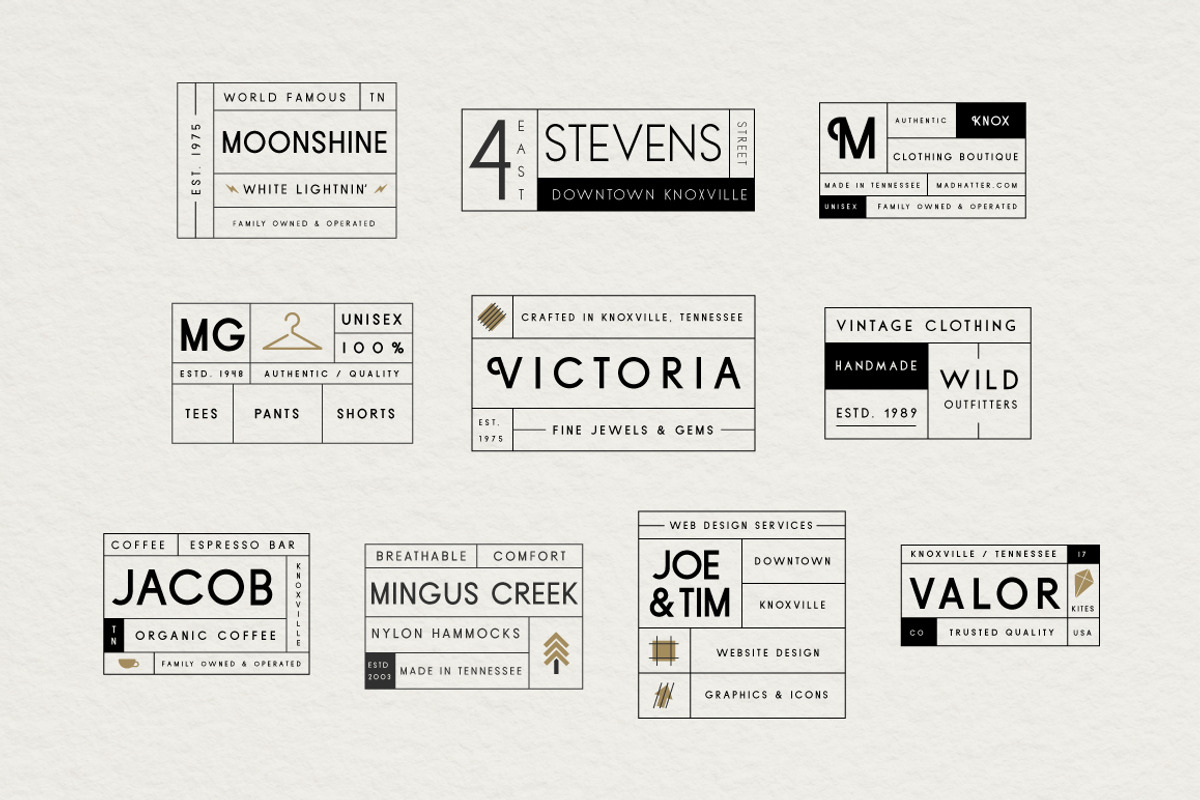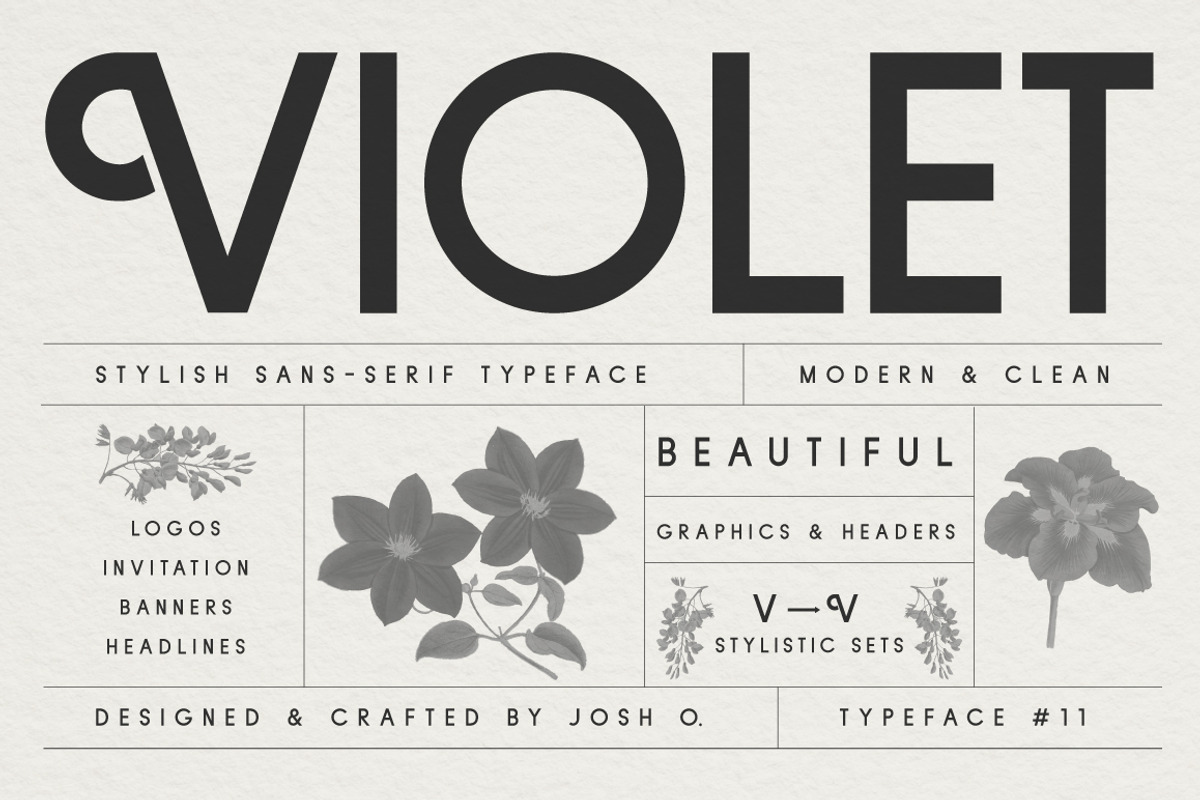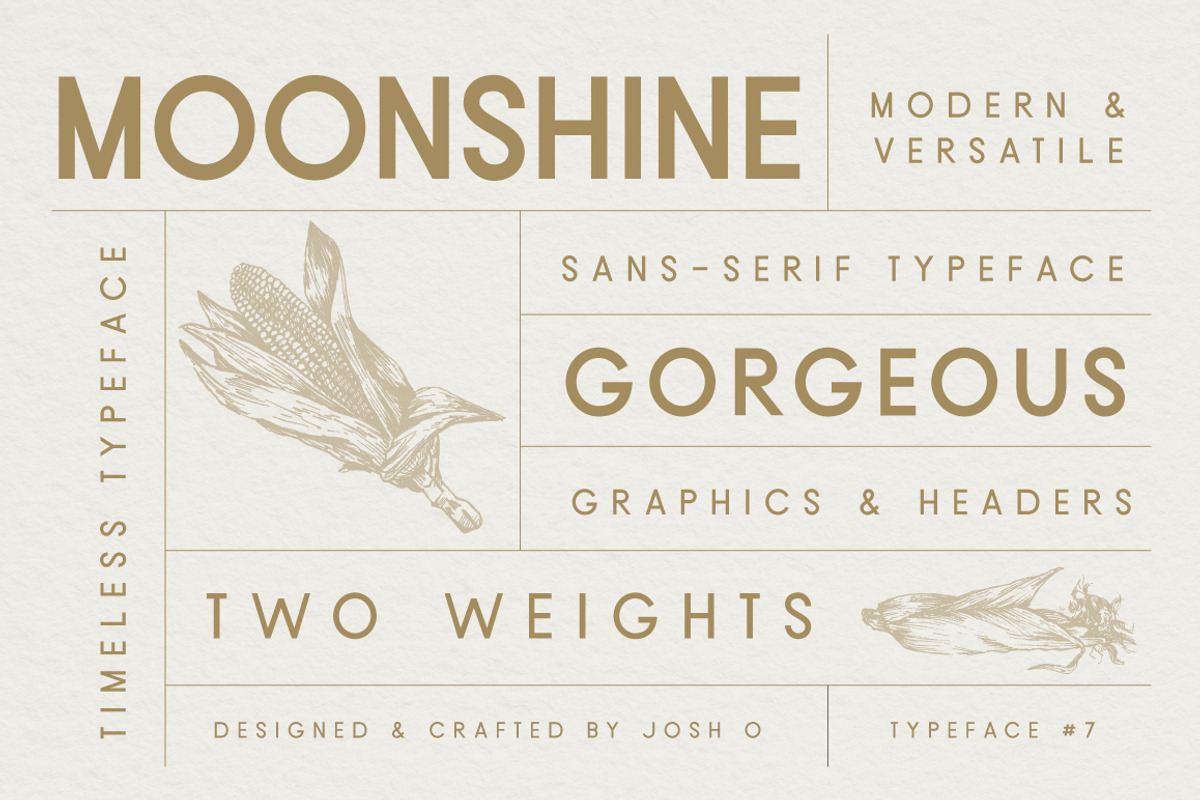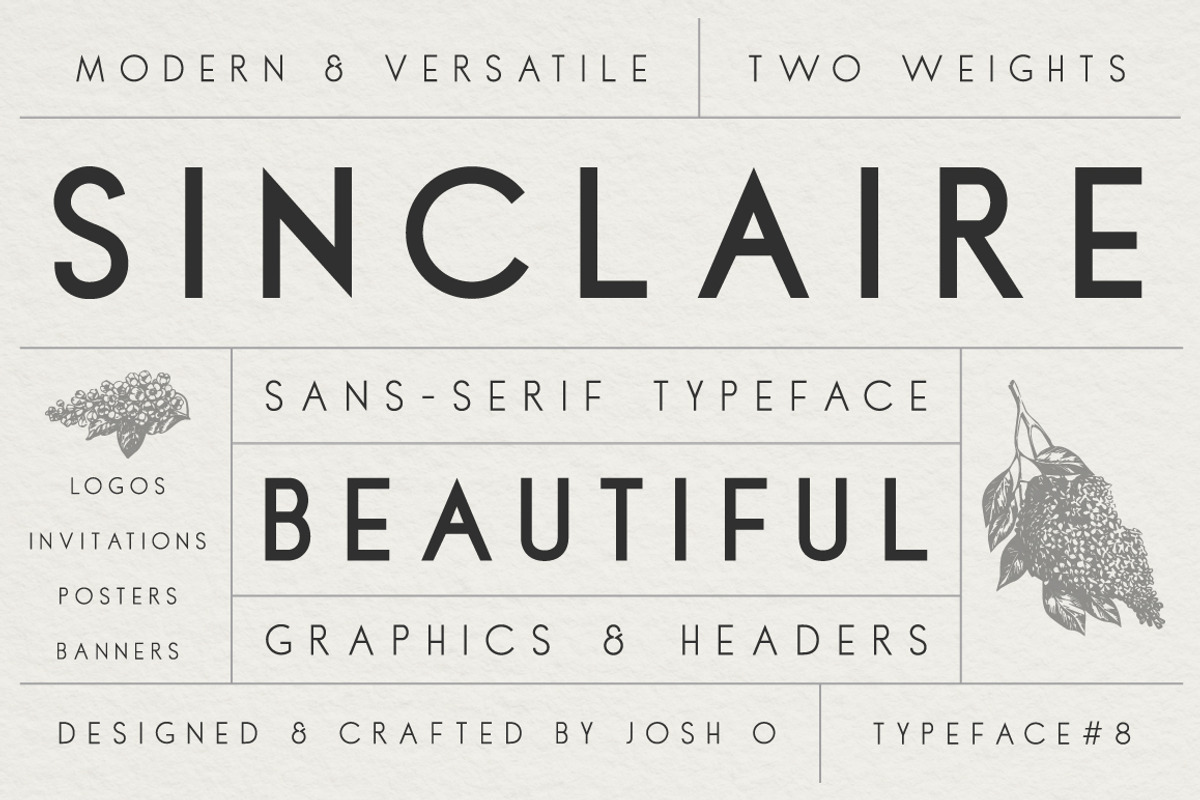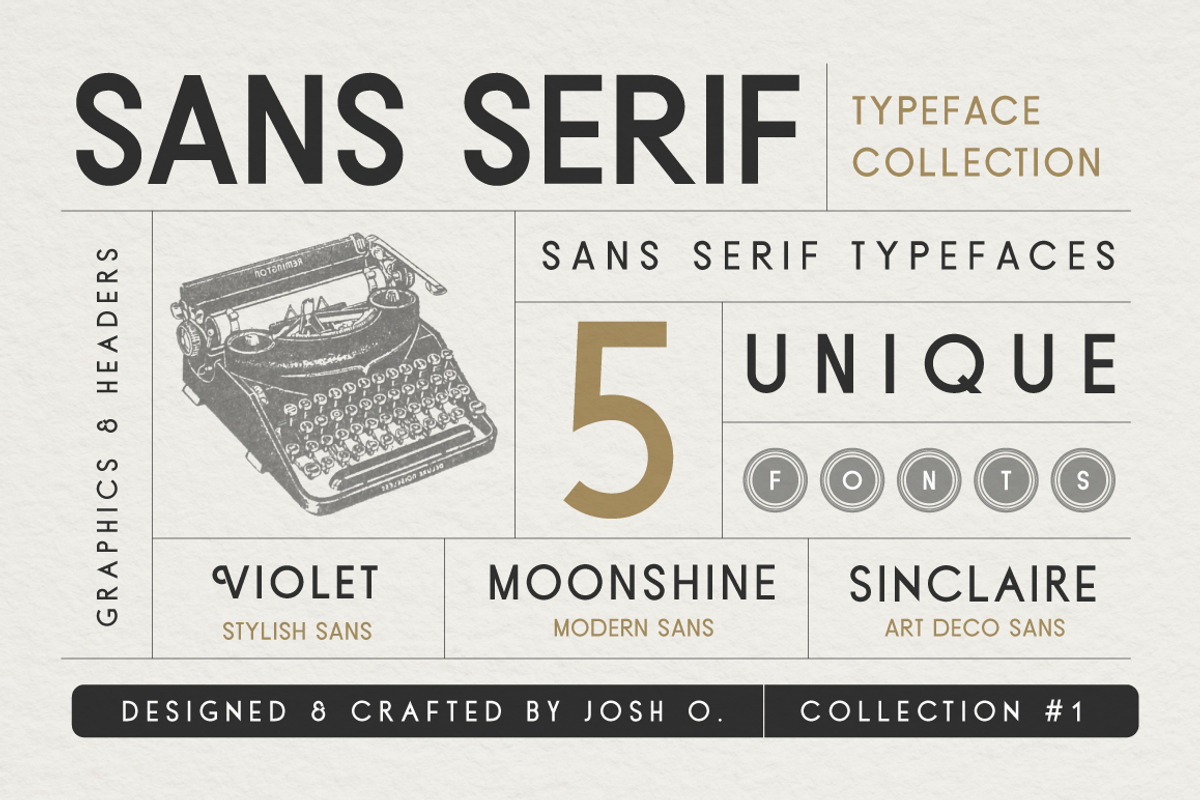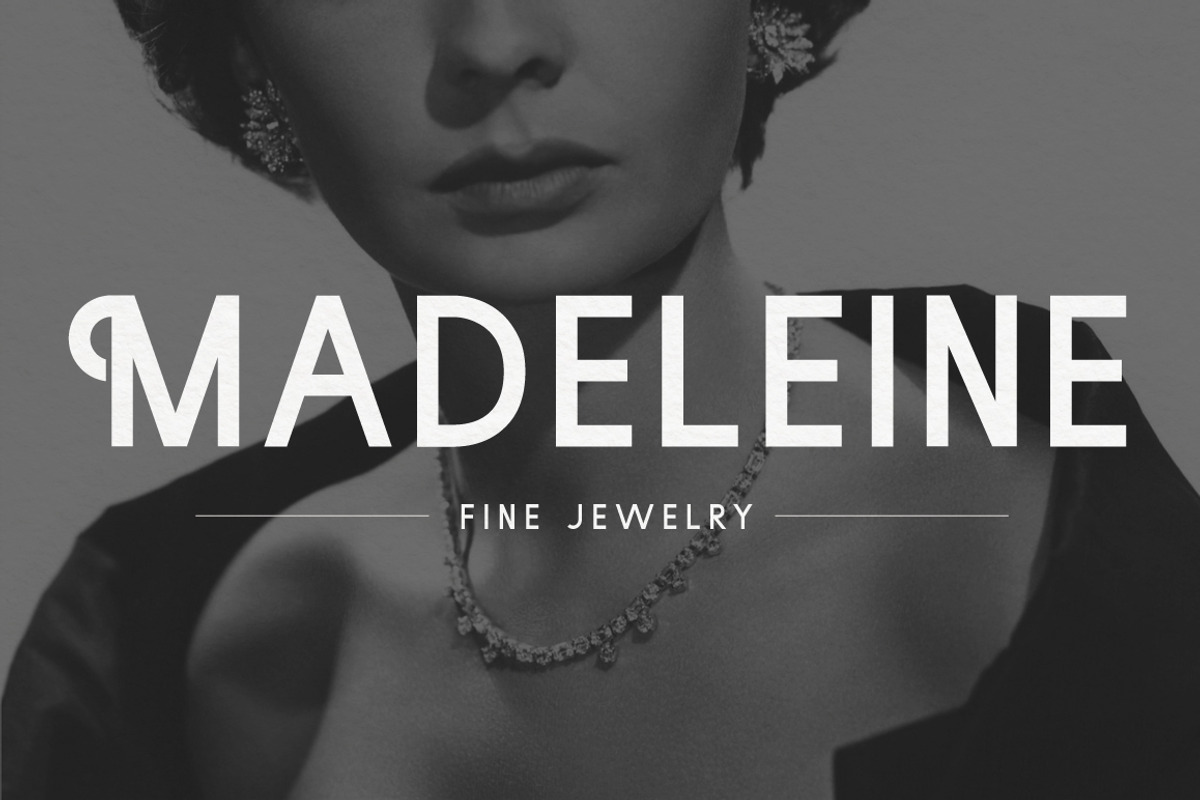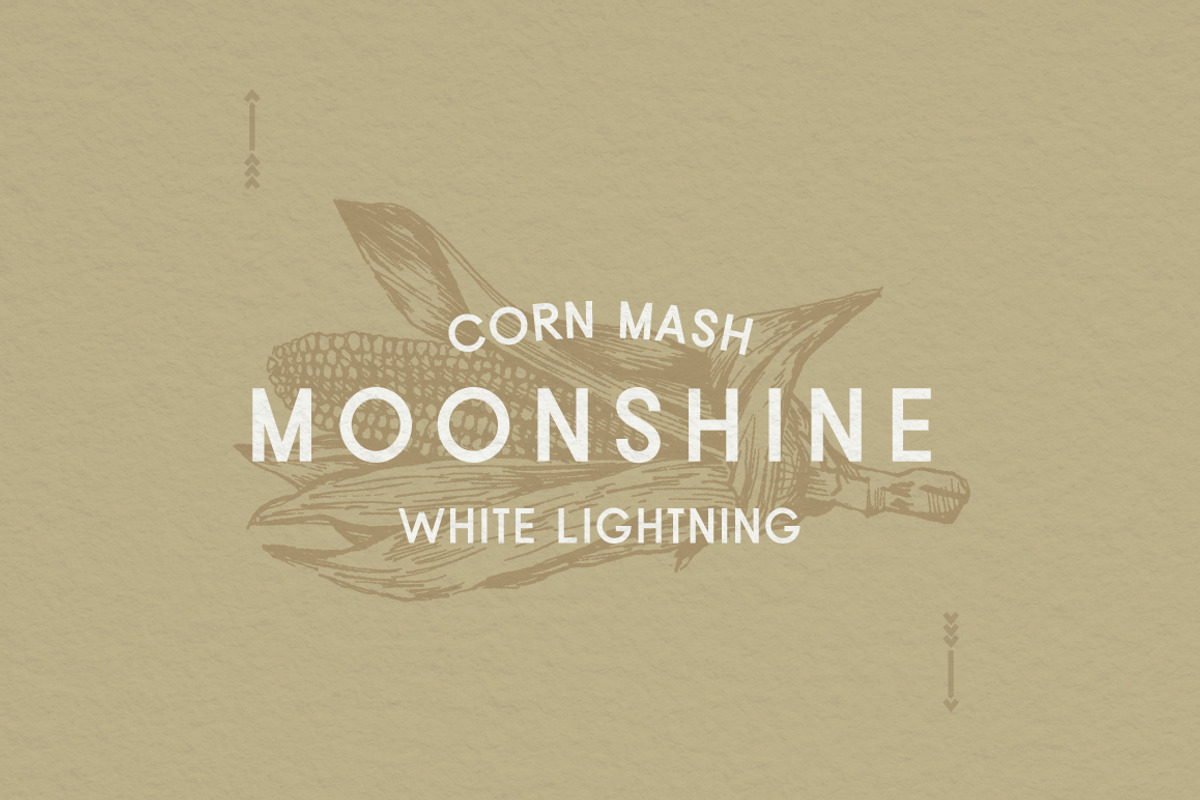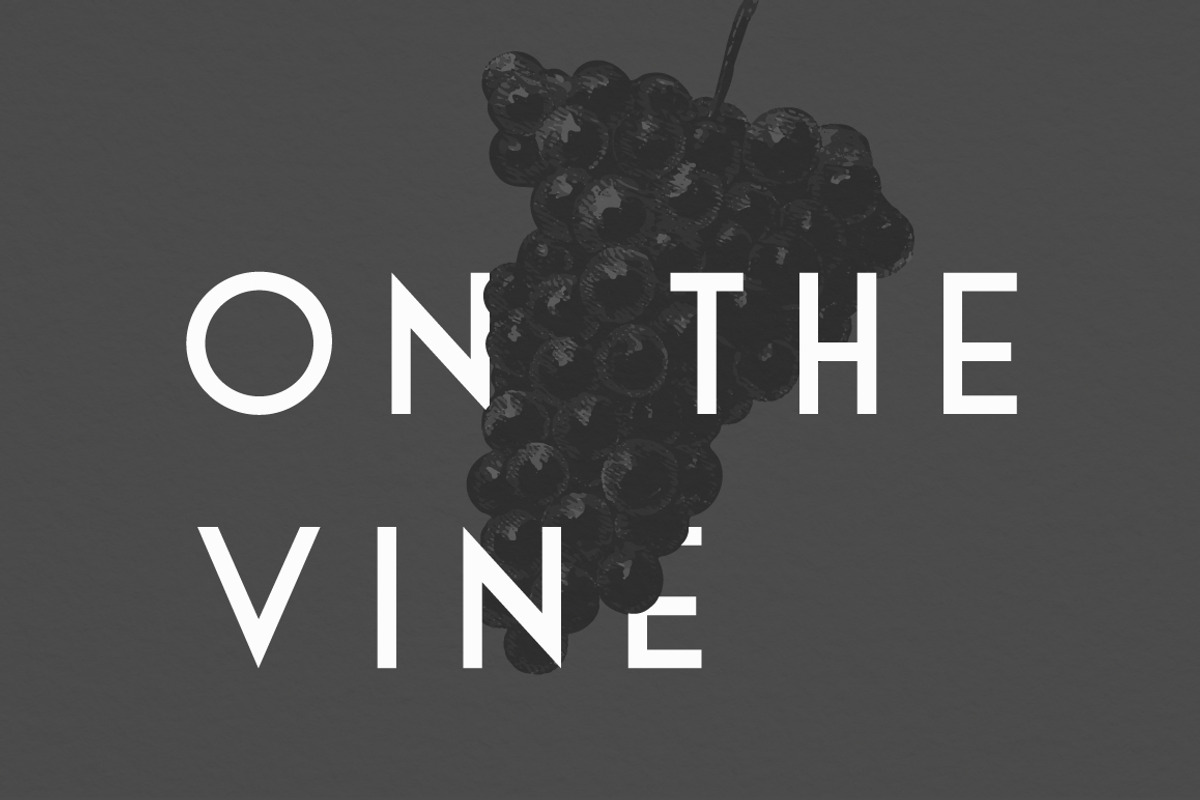
Sans Serif Typeface Collection
3 Typefaces - 5 Fonts - 10 Type Design Templates
I've bundled some of my most popular sans serif typefaces to create a go-to collection for any designer or hobbyist to create gorgeous headers and graphics. Use the San Serif Typeface Collection for headlines, display graphics, labels, wedding invitations, vintage posters, and more. With three distinct products, each with their own character, and 5 total styles, you can always find the perfect pairing for your next project.
Moonshine - a modern, clean sans serif typeface in two weights.
Sinclaire - an art-deco-inspired sans serif typeface in two weights.
**Violet - ** an elegant, modern sans serif typeface with stylistic alternatives, perfect for logos.
Each typeface includes Uppercase Characters, Numerals & Punctuation, and International Characters.
Bonus: Type Design Templates